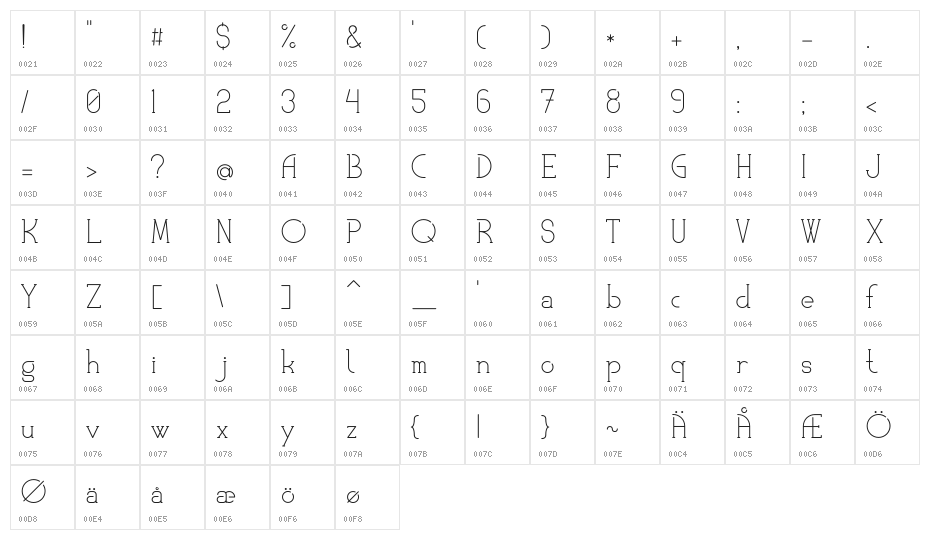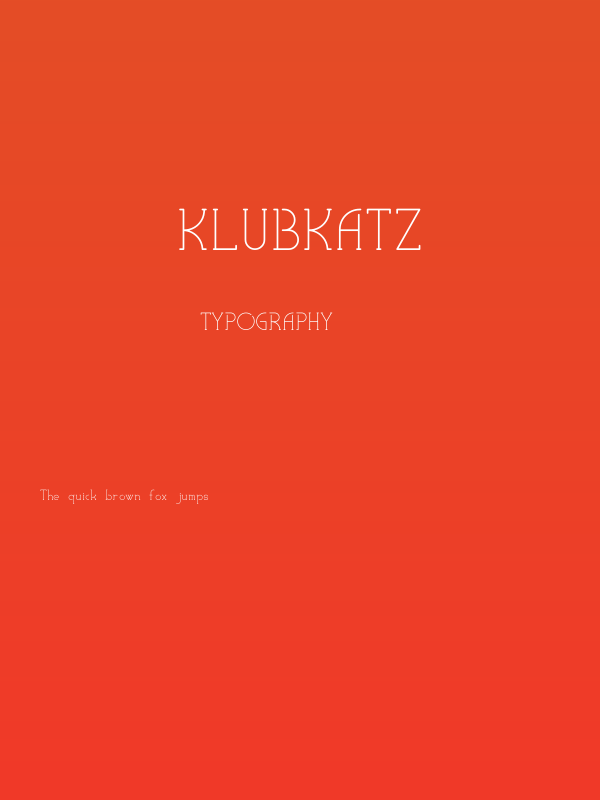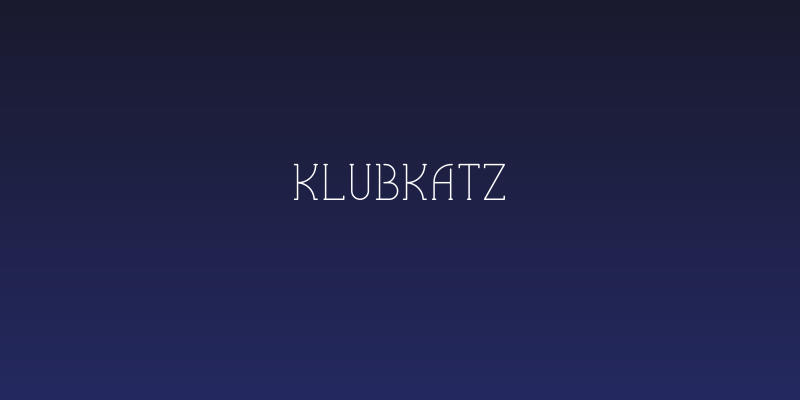
KlubKatz Font
KlubKatz Description
This font features a clean, geometric design with a modern twist. The characters are constructed with thin, uniform lines that create a sense of elegance and simplicity. The uppercase letters are tall and slightly condensed, while the lowercase letters maintain a consistent height and width, providing a harmonious balance. The numerals are distinct and easy to read, with a similar geometric style. Special characters are designed to complement the overall aesthetic, making this font versatile for various applications.
| Proposed Projects | Ideal for modern branding, minimalist design projects, editorial layouts, and digital interfaces. |